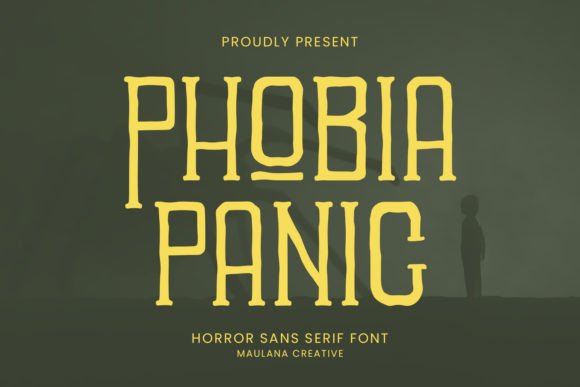
Introducing Phobia Panic Font, a captivating and versatile sans serif font that will elevate your creative projects to new heights. Created by the renowned designer Maulana Creative, this font is specifically tailored for those seeking a Font Style For Number Plate that will leave a lasting impression.
With its bold stroke and fun character, Phobia Panic Font exudes a sense of horror and intrigue, making it perfect for a wide range of applications. Whether you're designing a logo, crafting eye-catching social media posts, or working on captivating movie or book titles, this font will bring your creations to life with its unique personality.
But Phobia Panic Font is not limited to short text snippets - it shines even in lengthy paragraphs and letters. Its ligatures and alternates add an extra touch of creativity and flair to your words, making them stand out and grab attention effortlessly.
Looking to add a touch of sophistication to your designs? Phobia Panic Font pairs exceptionally well with script or serif fonts, making it an ideal choice for your secondary text font. The combination of styles creates a harmonious balance that adds depth and visual interest to your projects.
But why should you choose Phobia Panic Font over other options? Let's delve into its unique qualities that set it apart from the crowd.
Additionally, the emotional impact of Phobia Panic Font cannot be overstated. Its horror-inspired style evokes a sense of excitement, mystery, and even fear, tapping into the emotions of your audience and creating a memorable experience. Your designs will leave a lasting impression and captivate your viewers, urging them to take action.